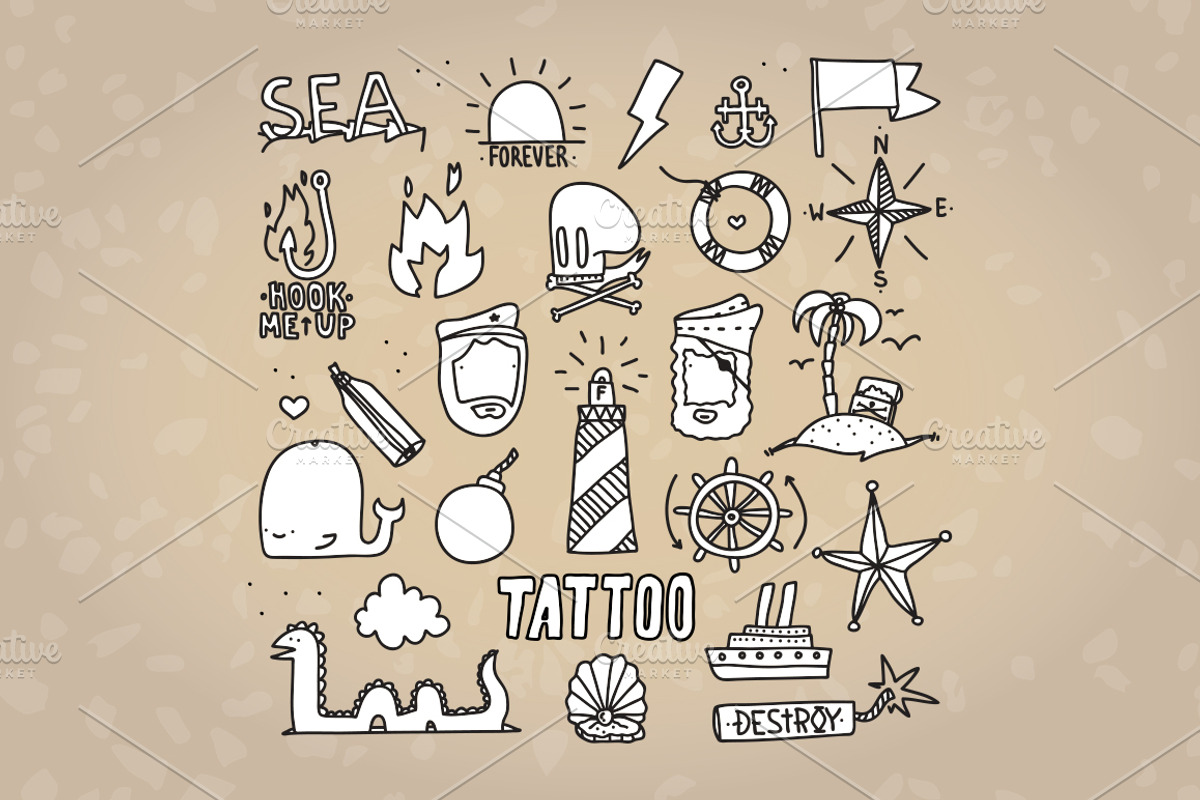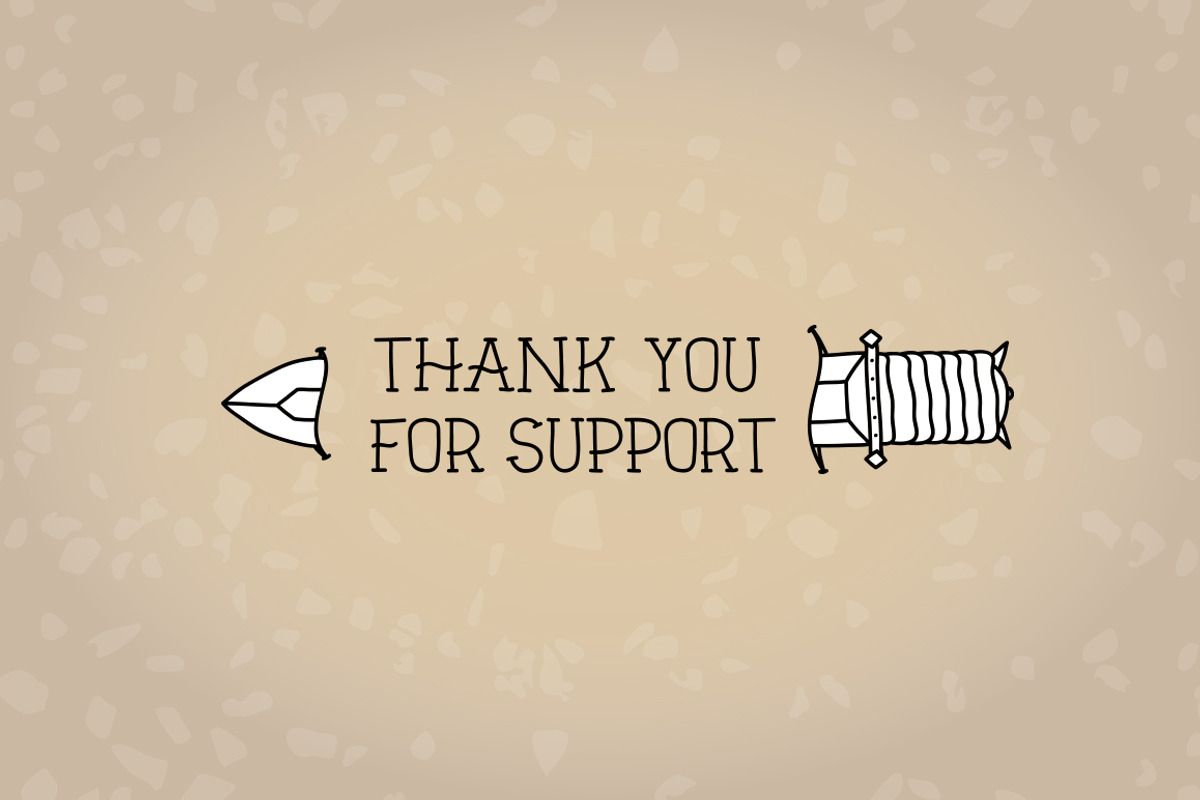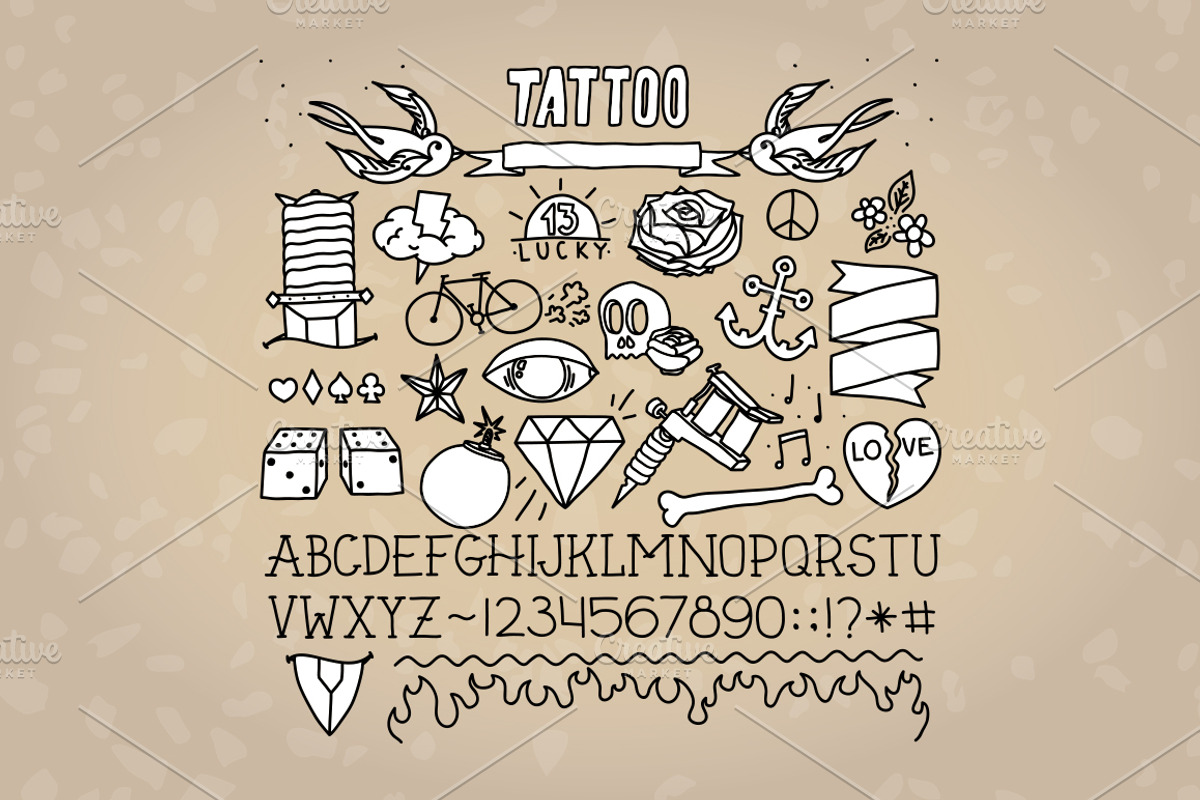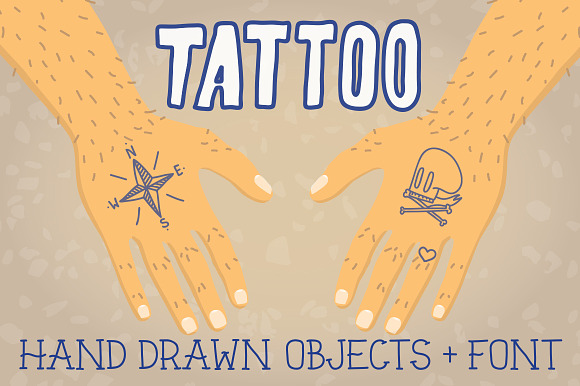
Old school tattoo objects + font
Why Old school tattoo objects + font is worth a look
Old school tattoo objects + font by Dmitriylo fits naturally into Editorial graphics, posters, social visuals, brand projects.